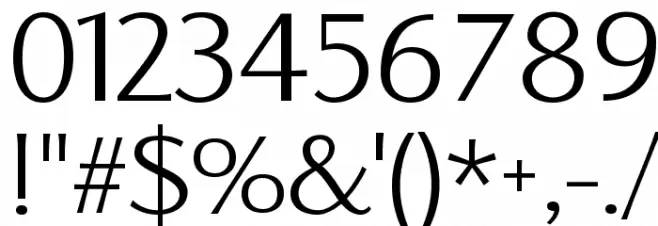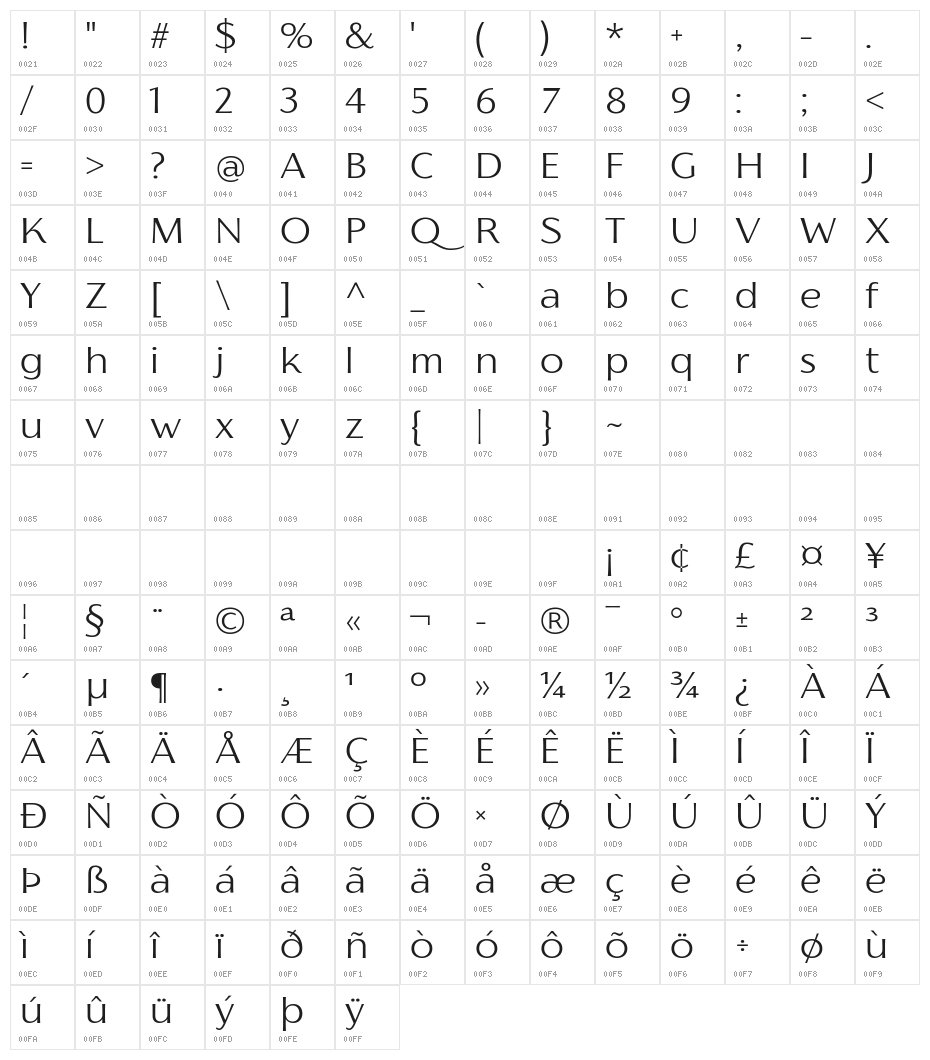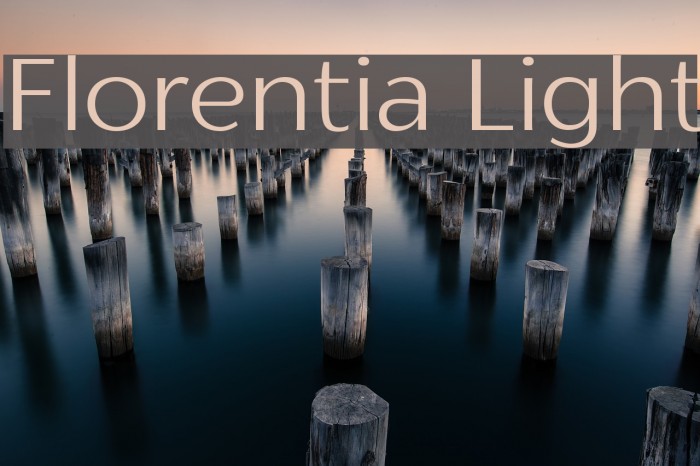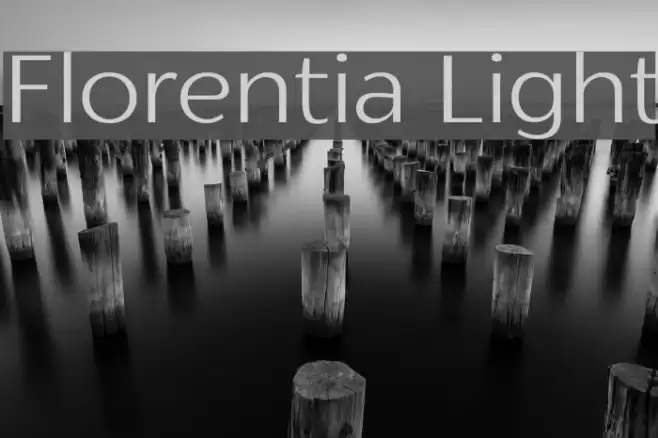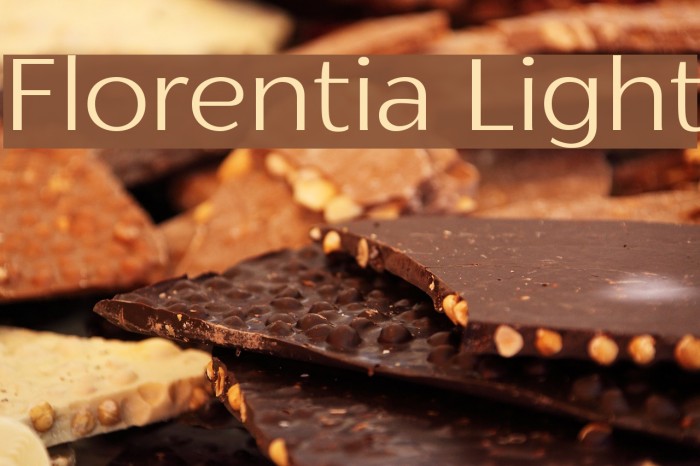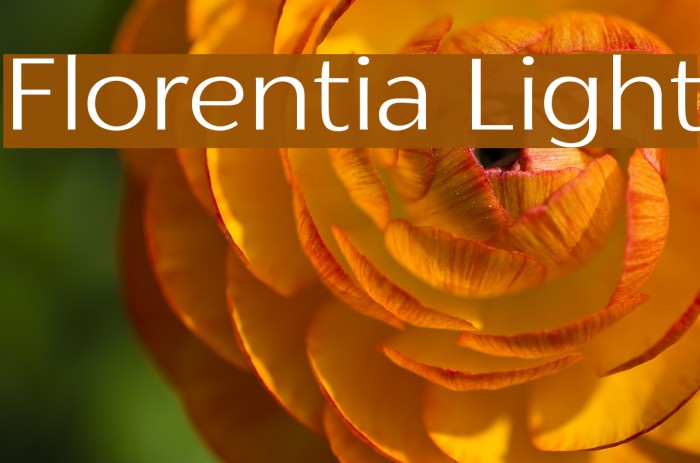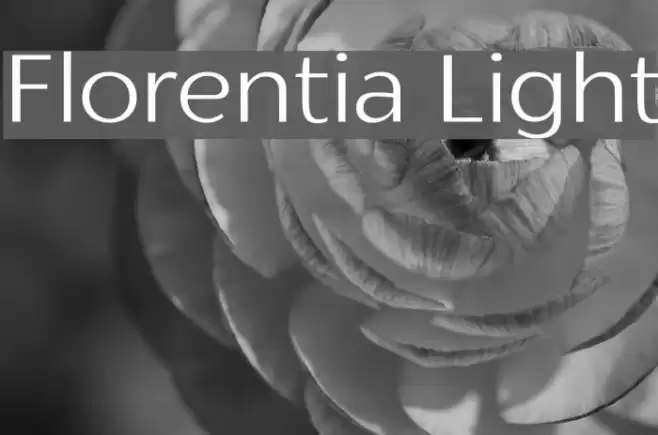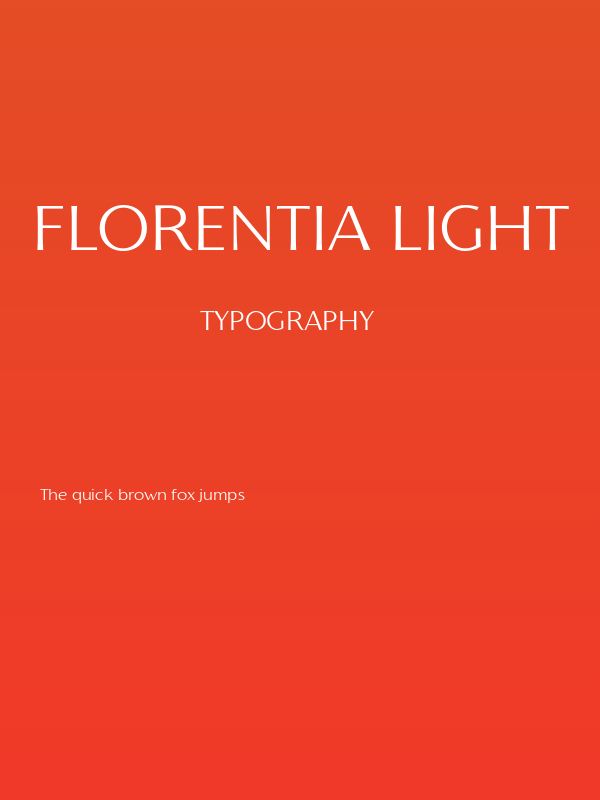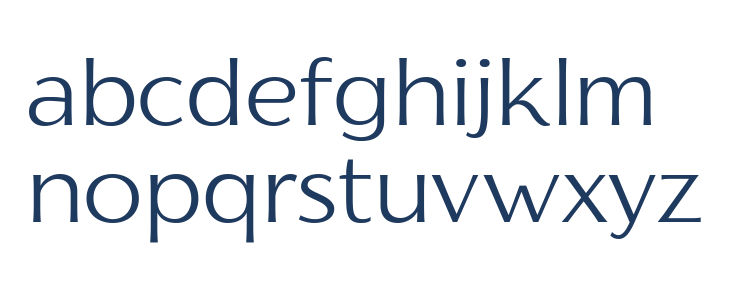
Florentia Light Font
Florentia Light Description
This typeface presents a clean and elegant design with a modern touch. The characters are crafted with a smooth and consistent stroke, offering a refined and sophisticated appearance. The uppercase letters are slightly taller, providing a sense of authority and clarity, while the lowercase letters maintain a harmonious balance. The numerals are clear and legible, making them suitable for various applications. Special characters are well-integrated, ensuring versatility in design projects. Overall, this typeface exudes a sense of professionalism and contemporary style, making it ideal for both digital and print media.
| Proposed Projects | Ideal for branding, editorial design, corporate materials, and web design. |